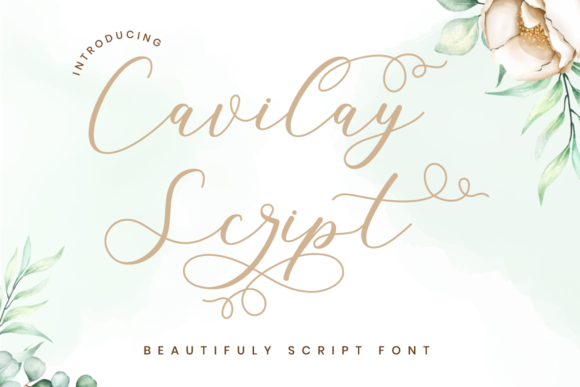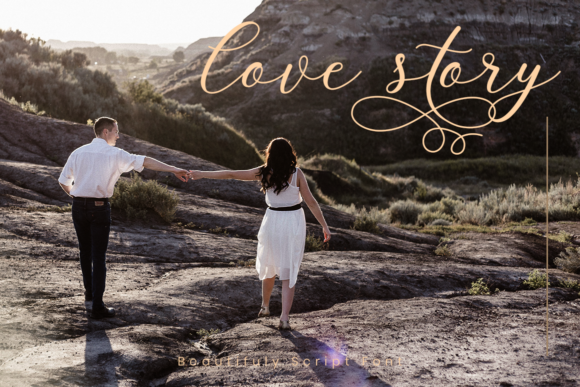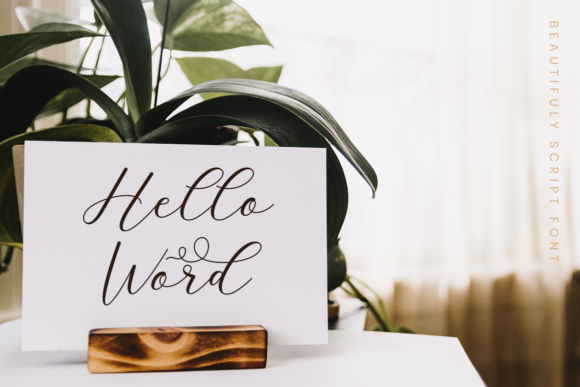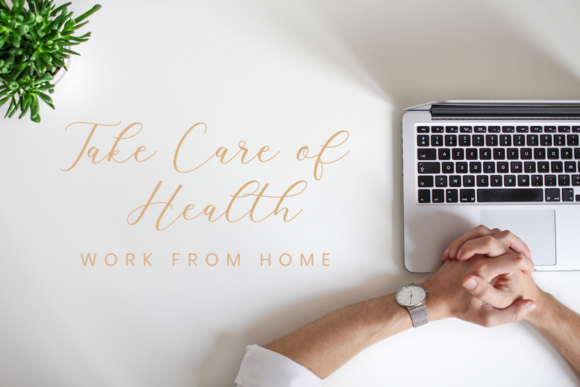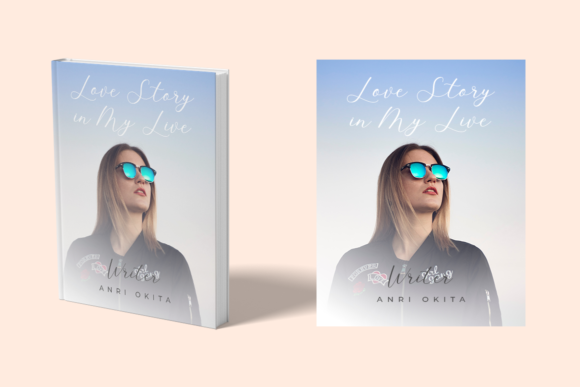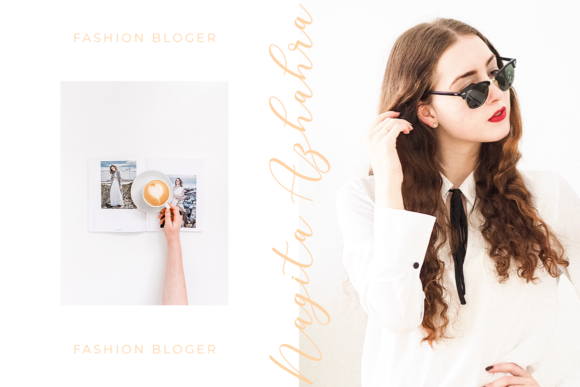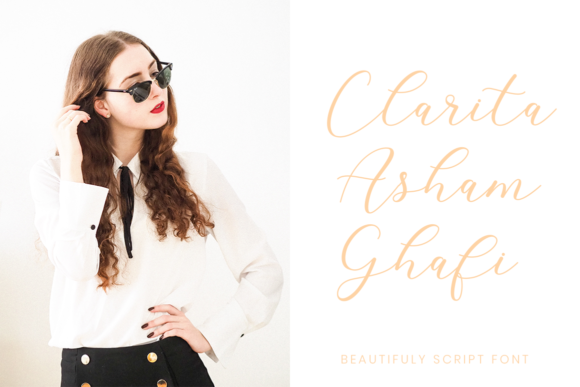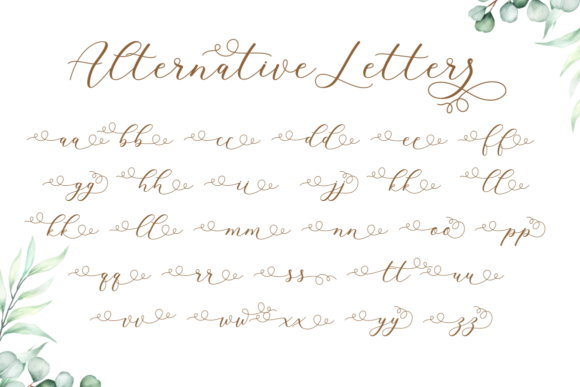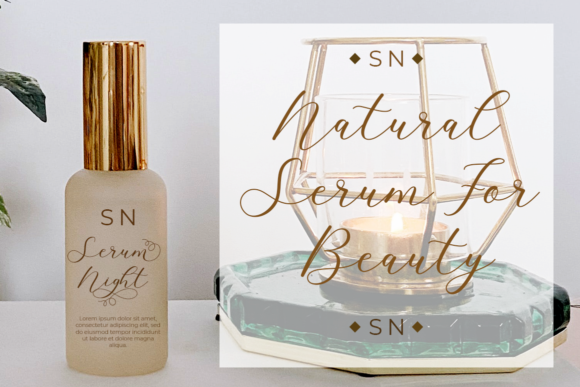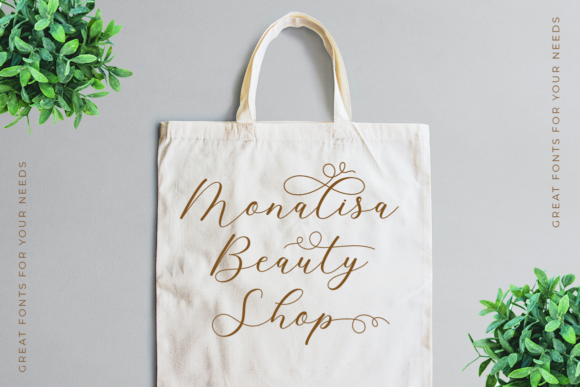
Cavilay Script Font
About Cavilay Script Font
Cavilay Script feels incredibly elegant and flowing. It looks stunning on wedding invitations, thank you cards, quotes, greeting cards, logos, business cards and every other design which needs a handwritten touch. It features a varying baseline, smooth lines, gorgeous glyphs and stunning alternates.